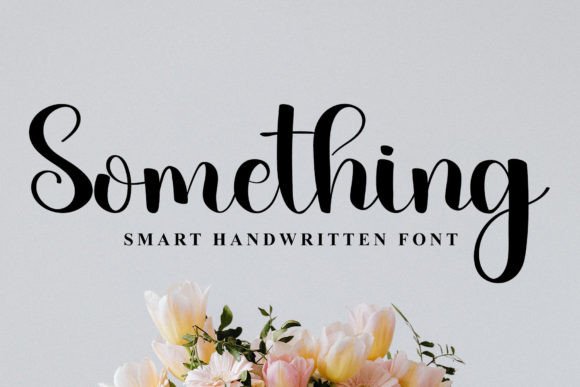
Introducing Something Font, the ultimate choice for those seeking the best handwritten font in the market. Crafted with love and care by PiPi Creative, this exquisite script font is designed to captivate and inspire. Get ready to immerse yourself in the world of elegance and creativity with Something Font.
With its neat and beautiful handwriting, Something Font adds a touch of sophistication to your projects. Whether you're working on invitations, logos, branding, or any other design venture, this font is guaranteed to elevate your creations to new heights. Its timeless style will leave a lasting impression on anyone who lays eyes on it.
Discover the endless possibilities this font offers. Something Font is perfect for adding a personal and authentic feel to your work. Imagine a handwritten love letter, a heartfelt greeting card, or a whimsical wedding invitation—Something Font brings these visions to life effortlessly. Let your creativity flow and watch as your designs turn into masterpieces.
But what sets Something Font apart from the rest? Its versatility and adaptability. It effortlessly adapts to any project, amplifying its charm and impact. Whether you're aiming for a romantic, elegant, or playful look, Something Font has got you covered. Its wide range of characters and ligatures allows you to create diverse and eye-catching designs with ease.
Indulge your senses with the emotional journey Something Font takes you on. Its elegant touch evokes a sense of nostalgia and warmth, making it perfect for heartfelt messages, quotes, or any project that requires a personal touch. Let the words dance on the page, conveying emotions that will resonate deeply with your audience.